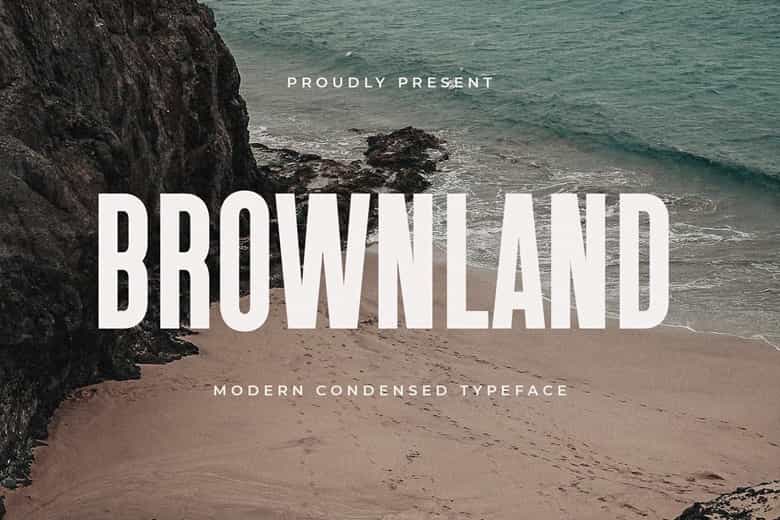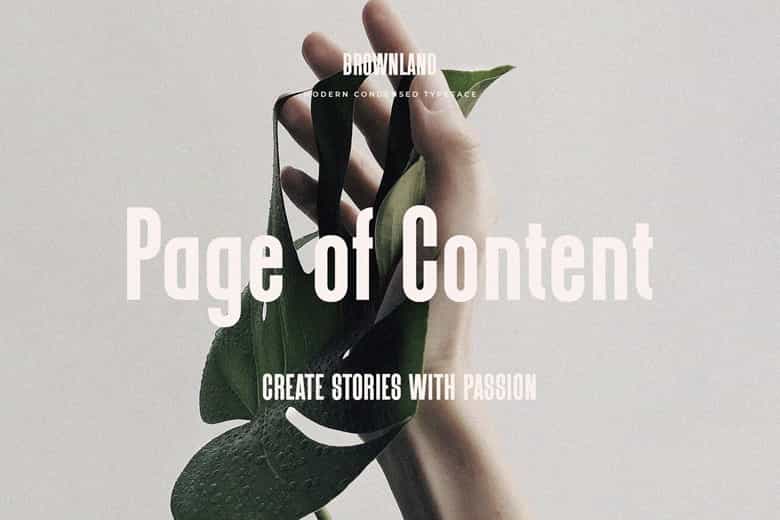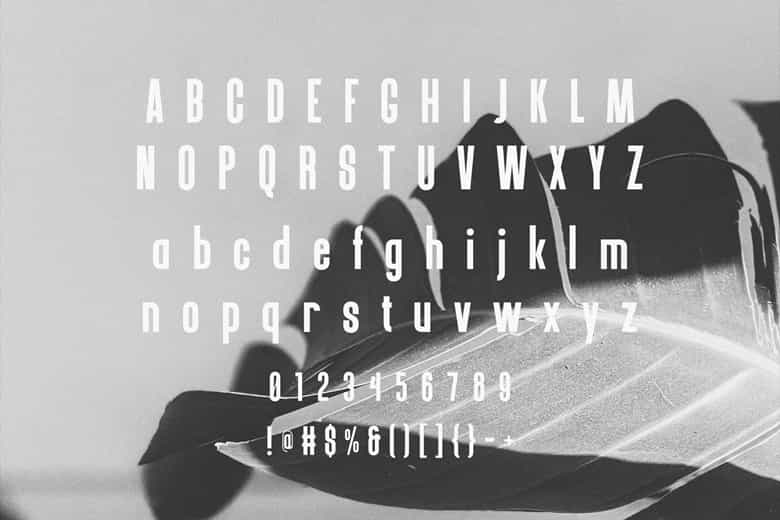
Brownland is a contemporary and elegant sans-serif font that should be applied to display uses, including titles, badges, logos, brands, publications, box designs and cards. Brownland come with clean lines and smooth curves giving any project that implements them a richer look.